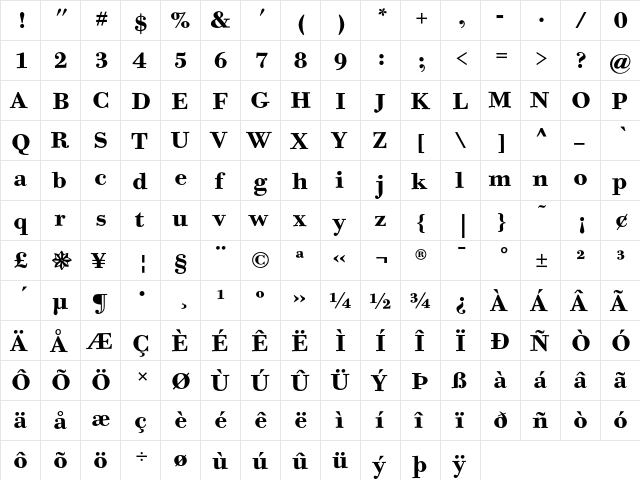
BodoniSixEF Bold Font Preview
BodoniSixEF Bold
BodoniSixEF Bold Font Details
Design Context for BodoniSixEF Typeface
BodoniSixEF offers clean, dependable letterforms without strong stylistic allegiance, making it a practical choice for designers who need flexibility. The heavy weight commands attention and anchors typographic hierarchies.
Pro Tip: Pair BodoniSixEF with a font of contrasting weight or personality to build a more expressive typographic hierarchy.